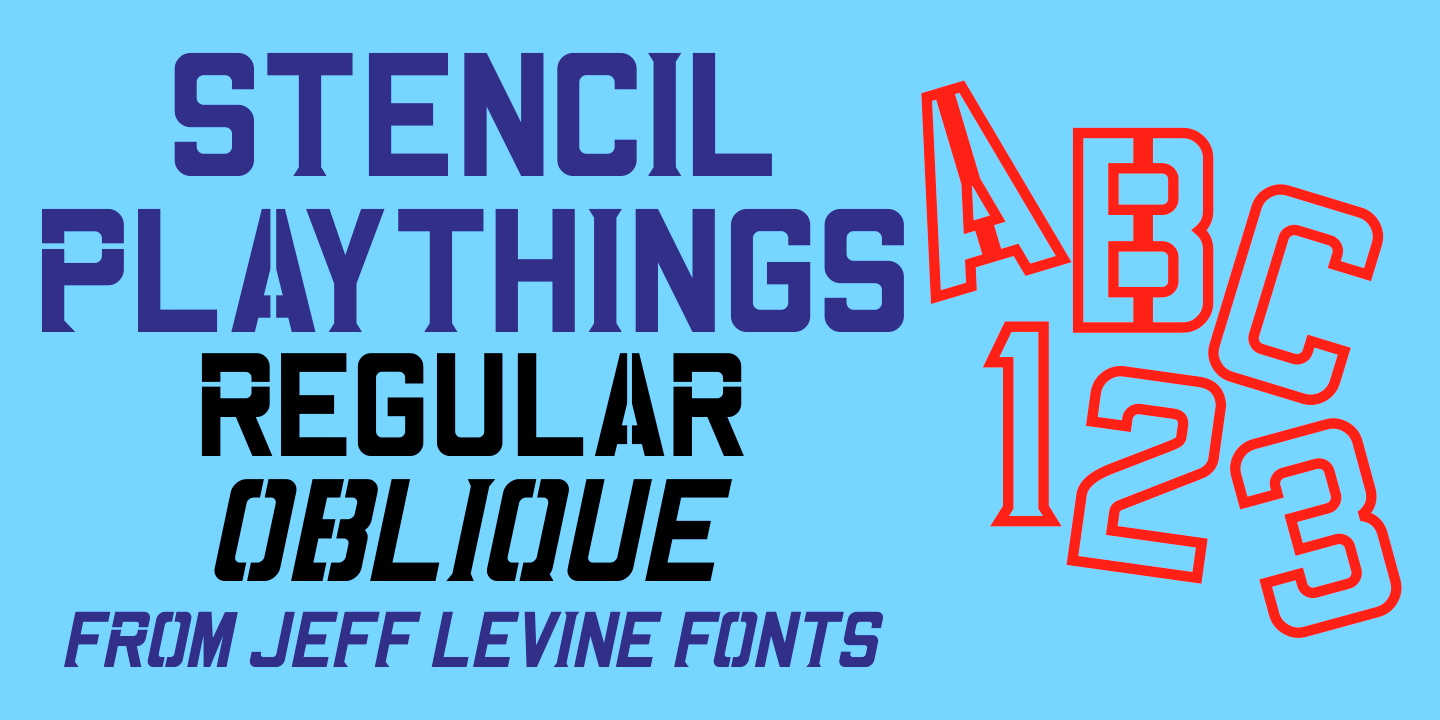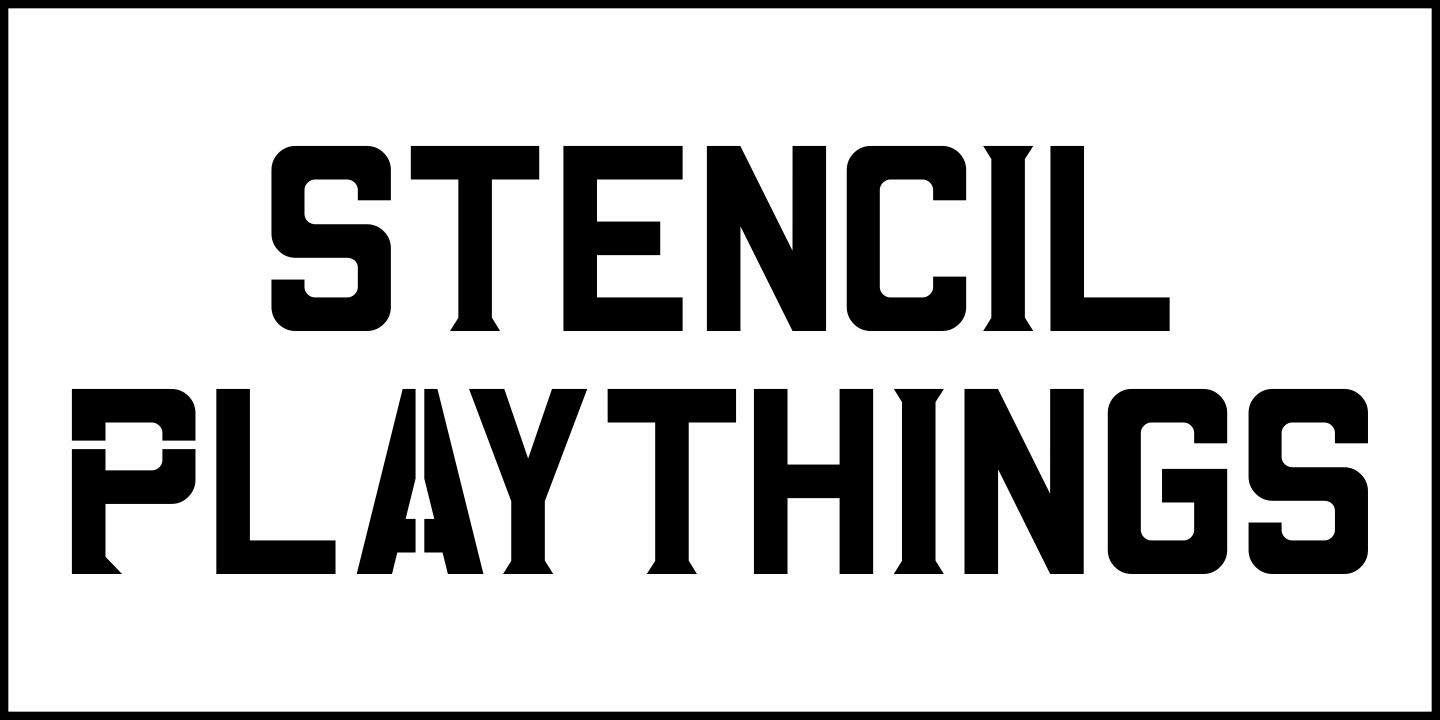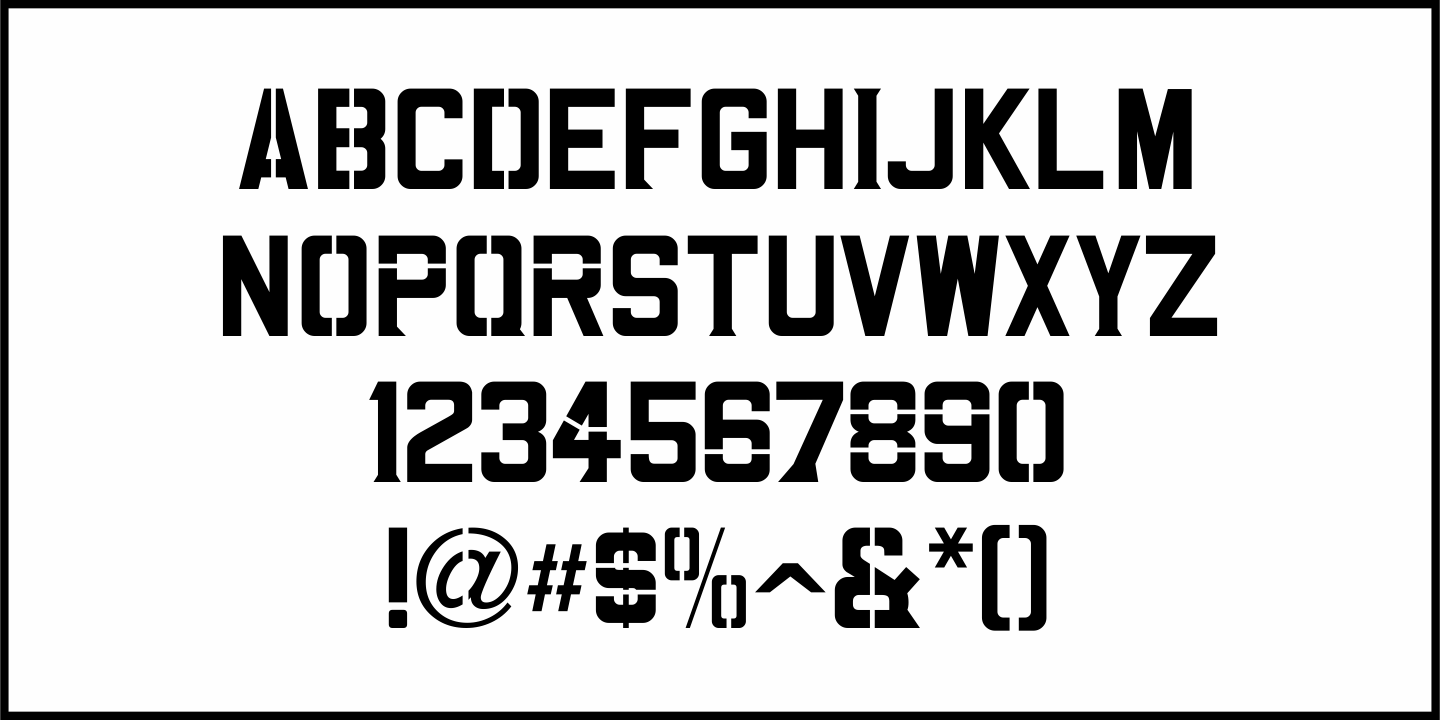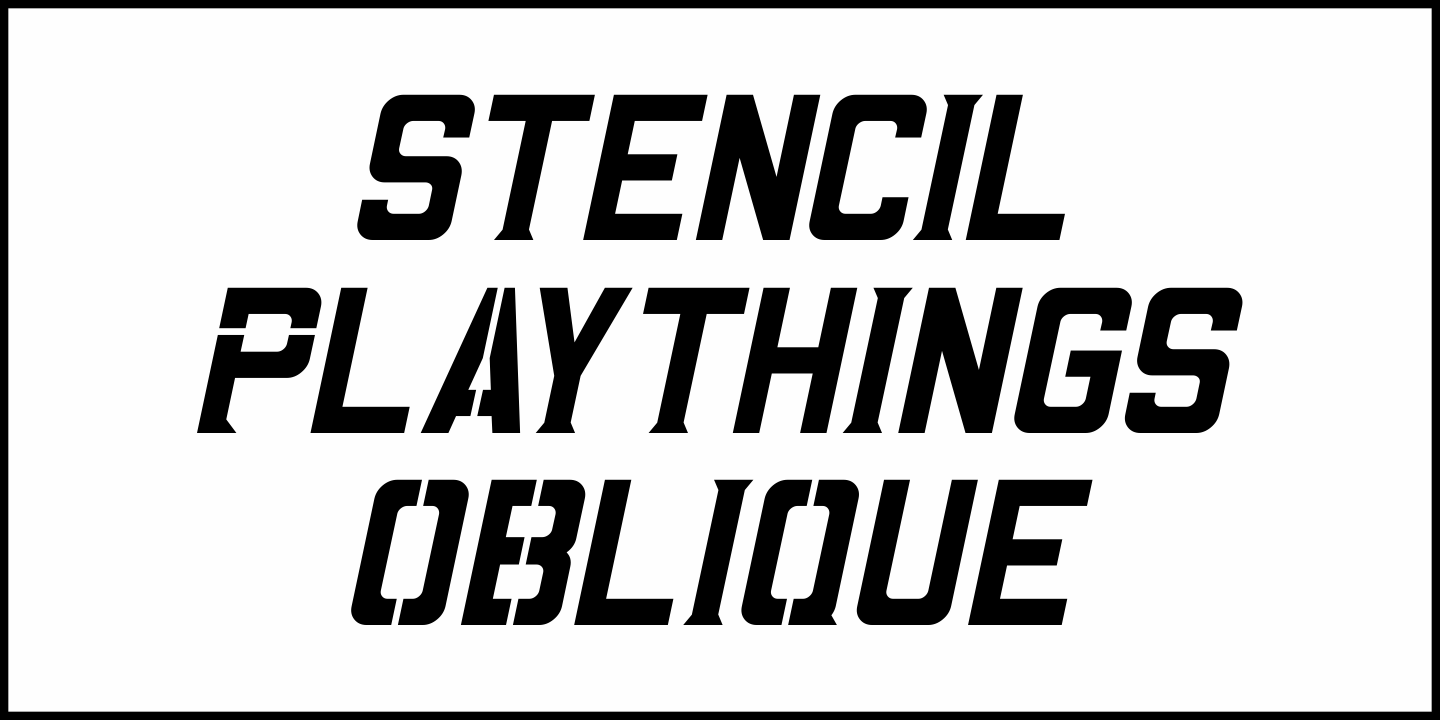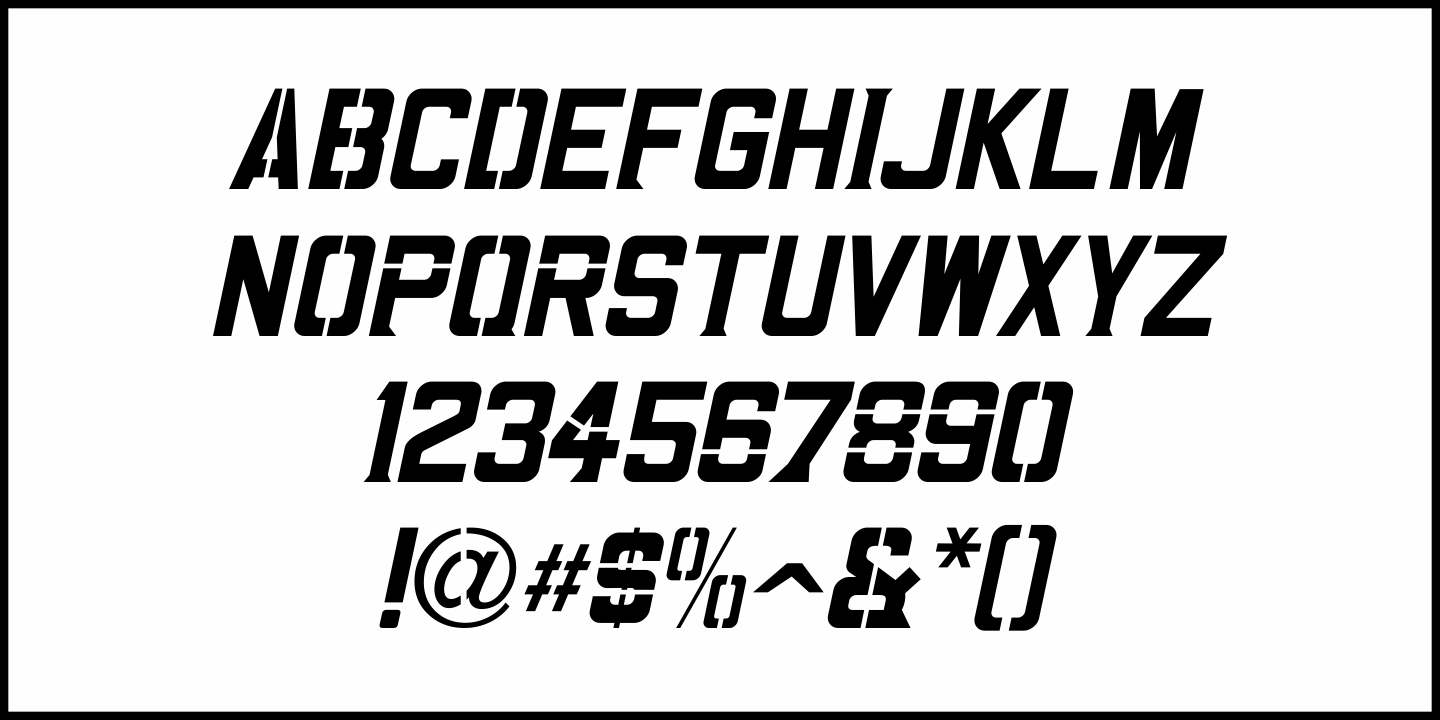
Stencil Playthings
A circa-1951 toy set called 'Kusan Kavalcade of Letters' was comprised of molded plastic letters and numbers a child could play with, trace and arrange to learn their alphabet and numerals.
Typographically, the design was all over the place – from sans serif characters to those with some spurred serifs and even some stenciled characters because of the nature of manufacture.
As odd as this combination seems, it was novel enough to be turned into a digital typeface called Stencil Playthings JNL, which is available in both regular and oblique versions.